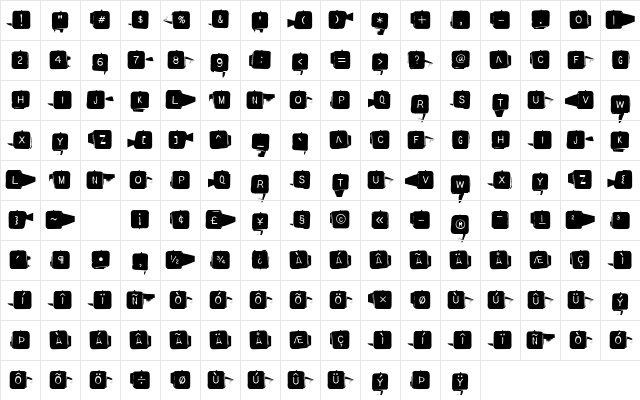
Complete BackspacerSquare Medium glyph index. Displaying only characters natively supported by BackspacerSquare Medium font.
BackspacerSquare is a composed and adaptable typeface that performs quietly and consistently across a wide range of design contexts.
Who designed the BackspacerSquare Medium font?
This font was published by (C) Emigre Graphics, designed by SmokeBomb Studio, NYC Nancy Mazzei and Brian Kelly. Check the technical specs section for copyright and designer details.